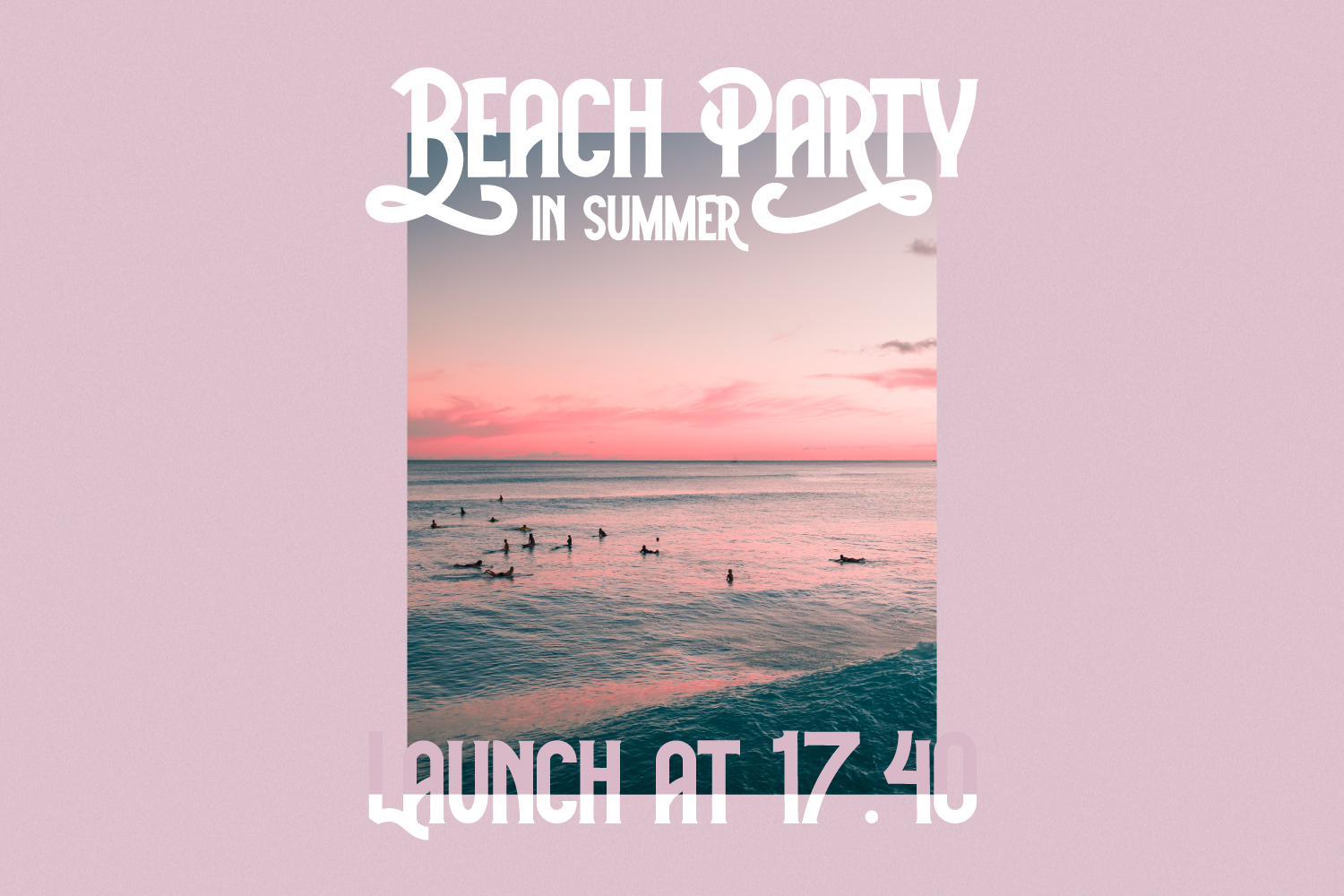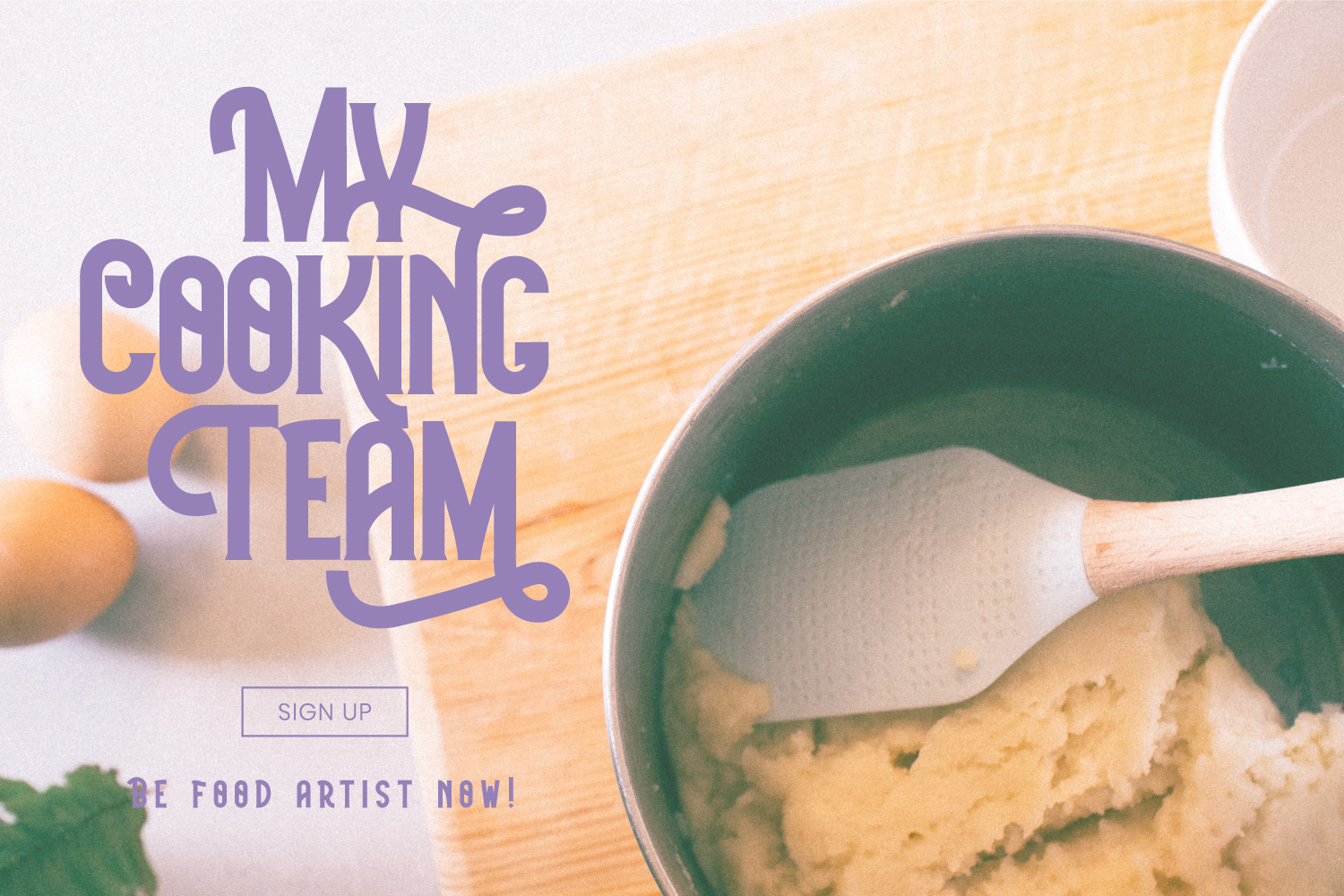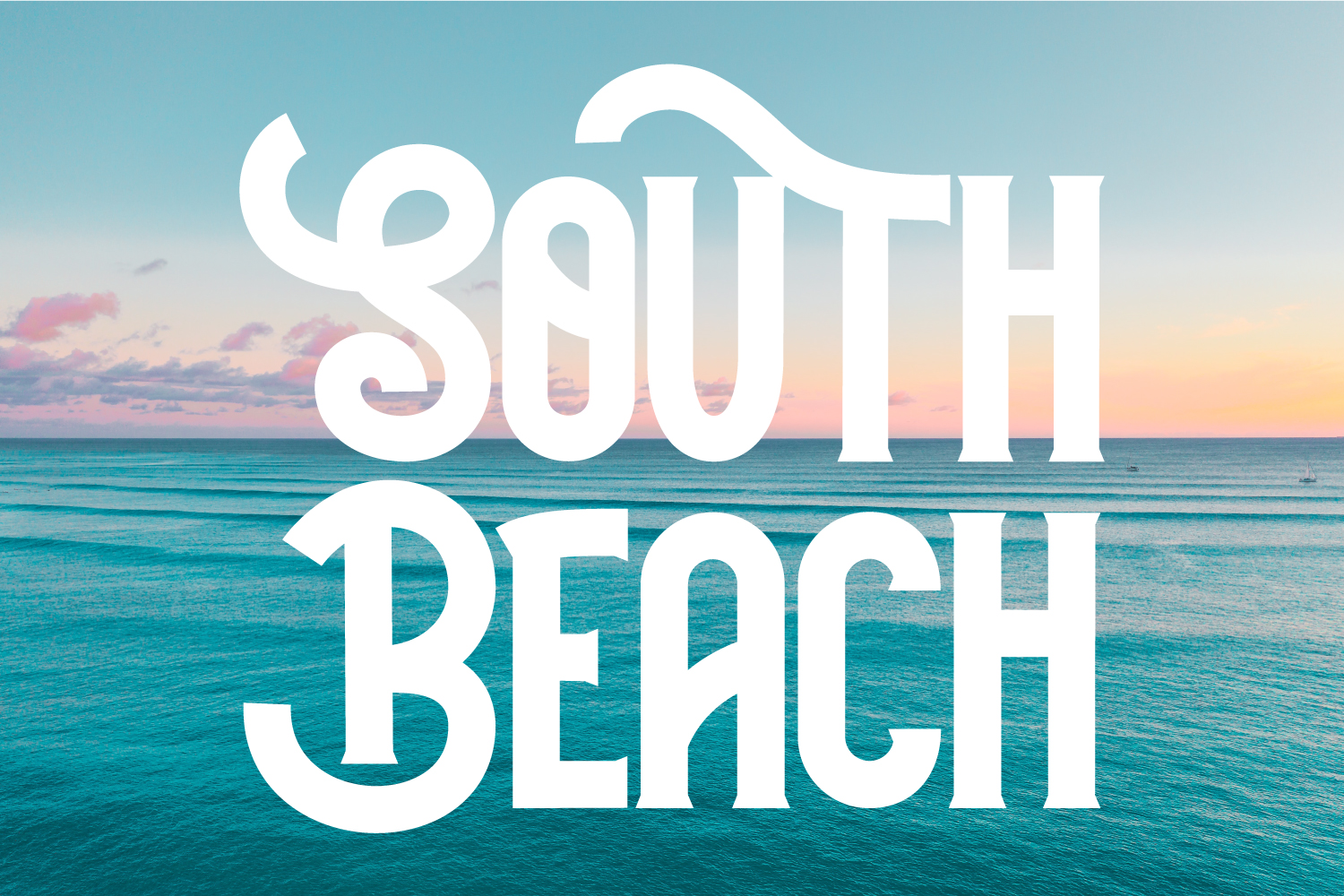
White Rainbow Font
White Rainbow Display Font
This is a cool, bold and retro styled display font. This font is PUA encoded which means you can access all of the glyphs and swashes with ease!
Add it confidently to your favorite creations and let yourself be amazed by the outcome generated.